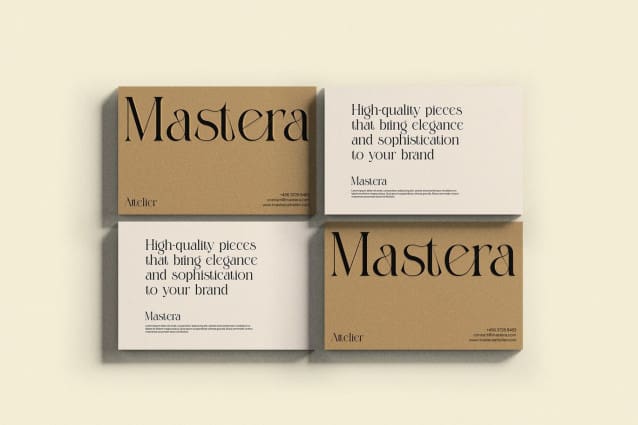
Gotham Font
Gotham Font is a very elegant and classy font for any branding and logo design. This Serif font is created with elegance and class in mind and is perfect for all your design uses. This font is perfect for your various needs such as branding projects, logos, social media posts, advertisements, labels, product packaging, photography, wedding designs, watermarks, invitations, stationery and any project that is created with a high standard of legibility.